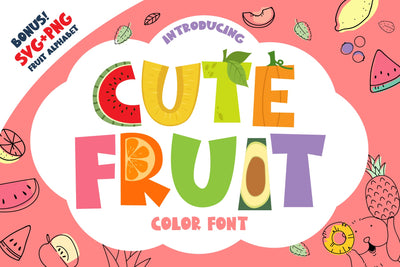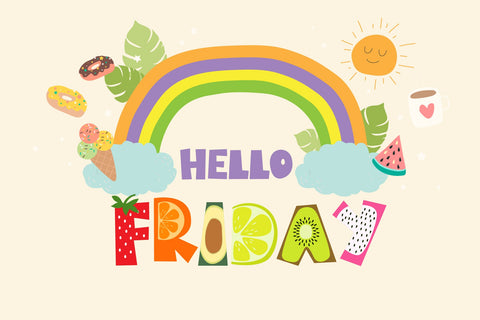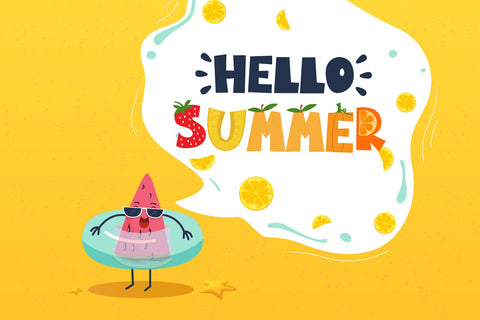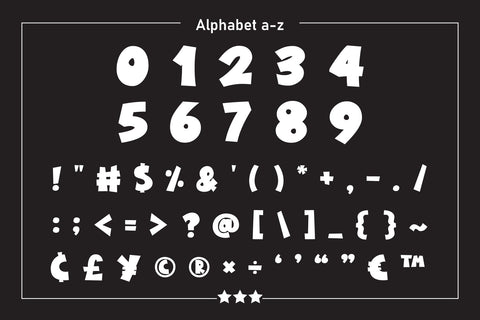
Cute Fruit Color Font
Cute Fruit is a cute and fun fruit style color font that blends perfectly with Display fonts. Fall in love with its authentic feel and use it to create gorgeous invitations, beautiful stationary art, eye-catching social media posts, and cute greeting cards. Add this beautiful display font to each of your creative ideas, and notice. how it makes them stand out.